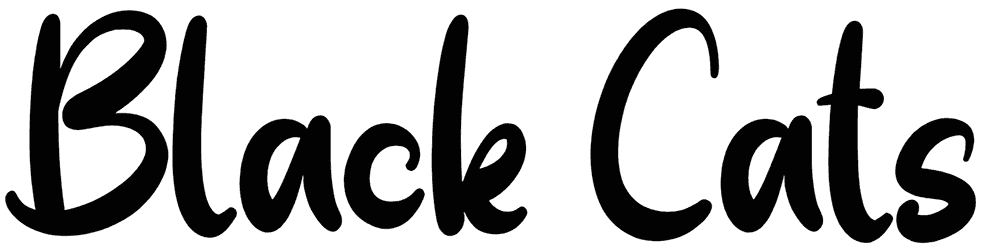
Black Cats Font
Don’t limit yourself this time and give yourself a lot of freedom in background design by choosing Black Cats. This script font is written in a simple and legible style that relaxes the audience and can be used mostly in designs where content is a priority.
This font recreates an intimate atmosphere that guarantees your success in communication with all ages. So just take it to make a lasting impression in the form of the covers, stationery design, and packaging.